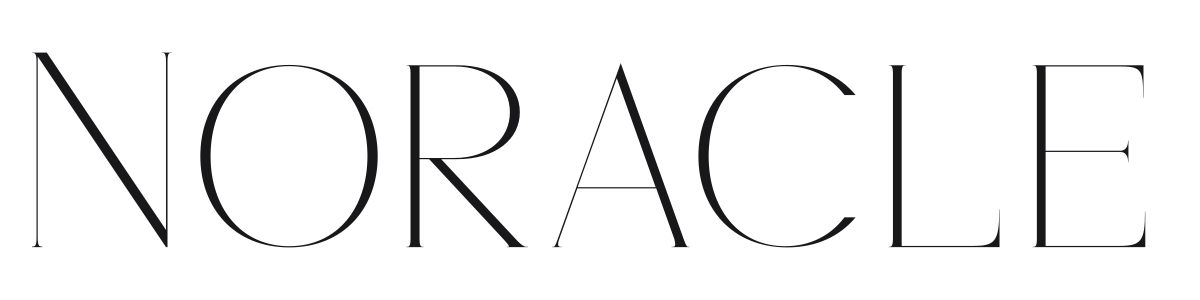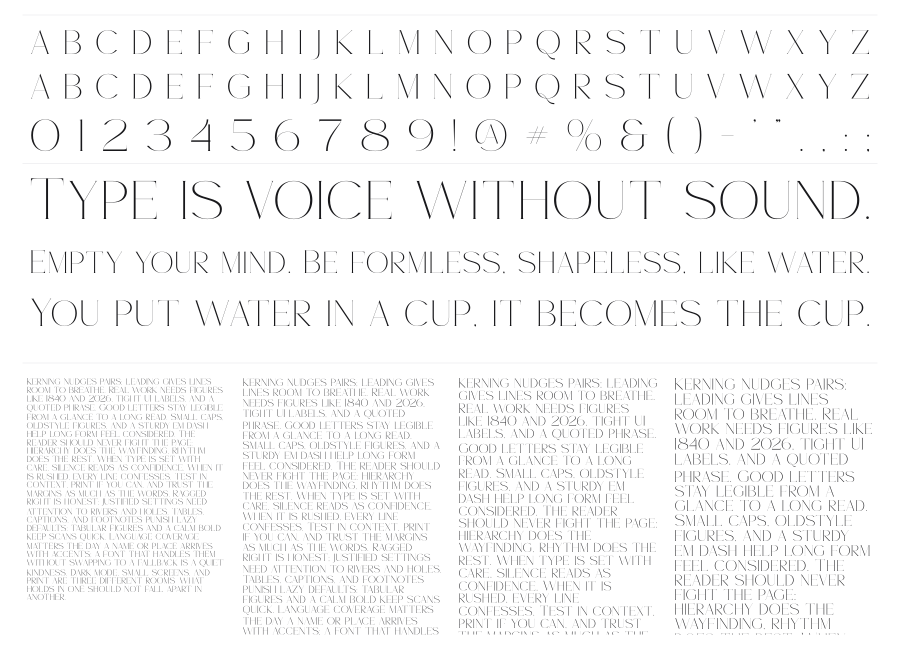
Noracle
Noracle is a hairline modern serif with extreme stroke contrast and a deeply fashion-forward sensibility. The paper-thin strokes and tall proportions channel the Didone tradition through a contemporary luxury lens, landing somewhere between Vogue masthead and independent art magazine. Best deployed large, where the contrast between its hairlines and stems can breathe.